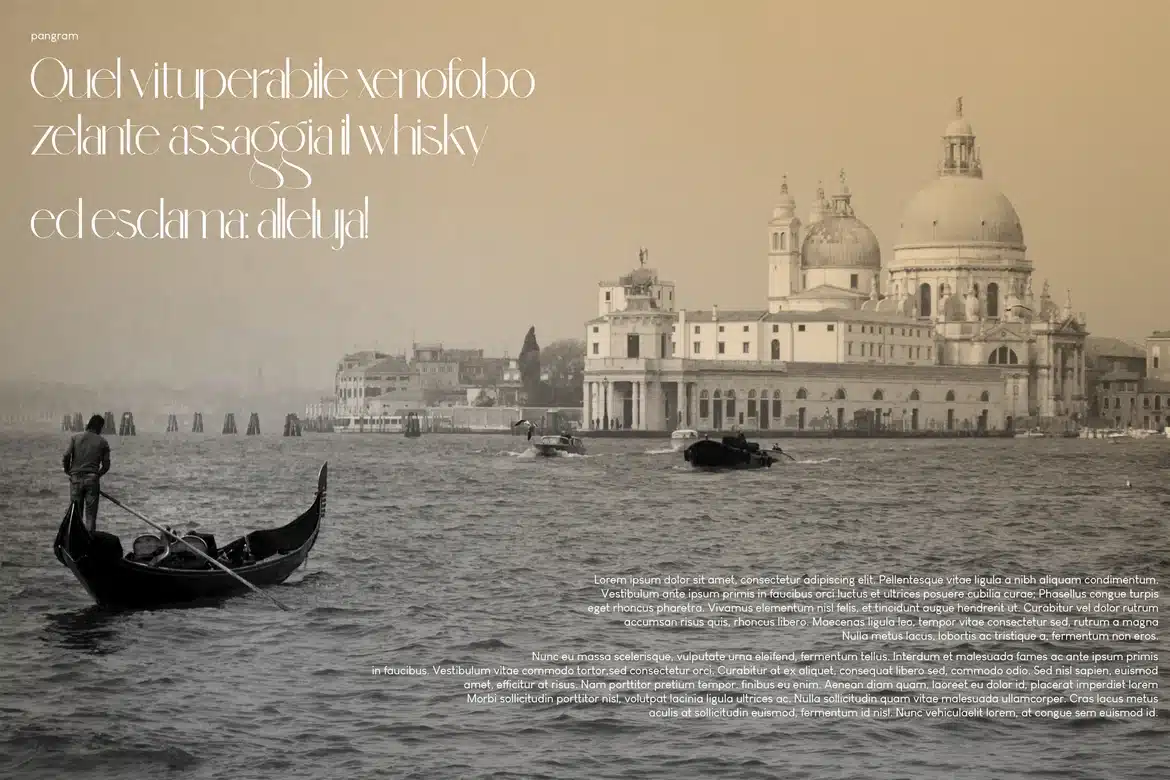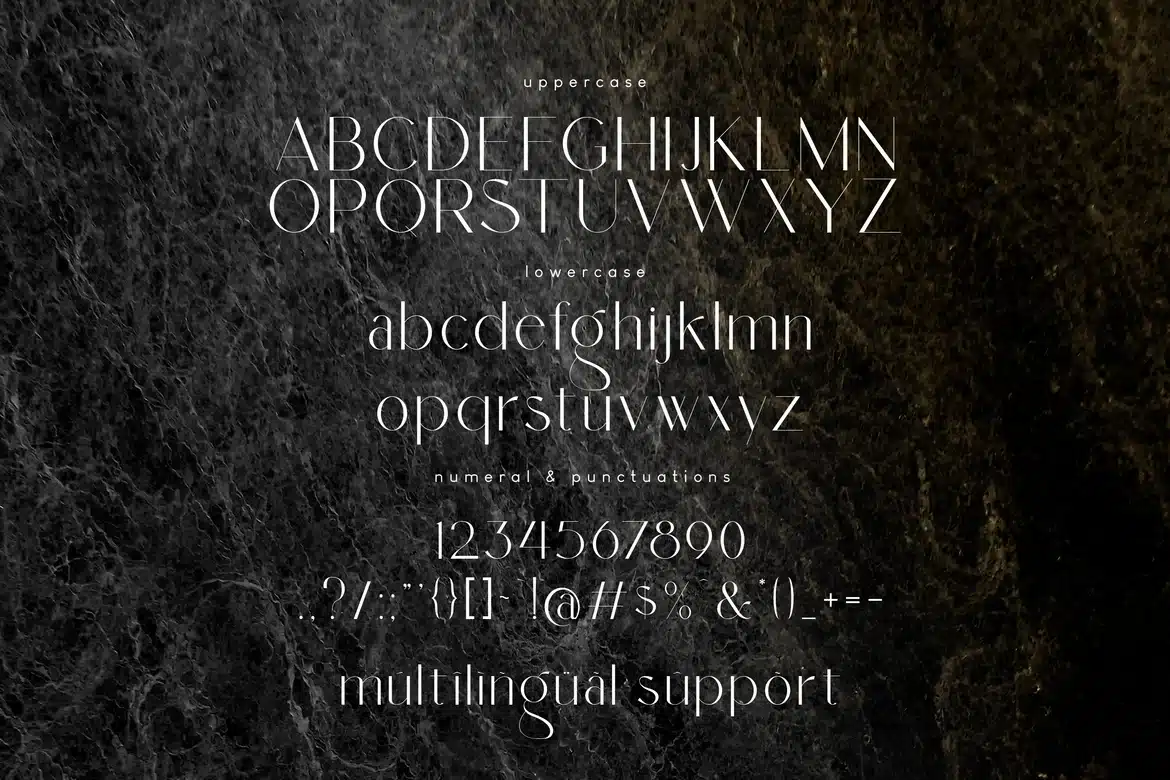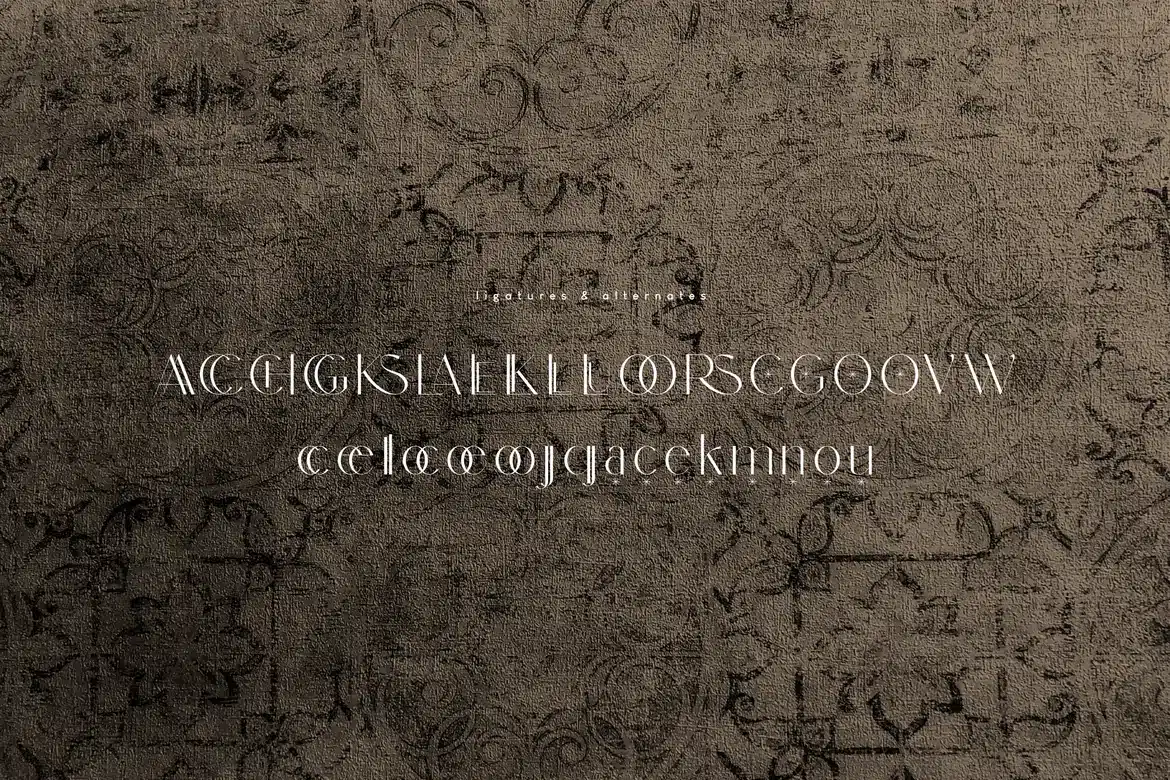
Dolce Gargia Modern Sans Serif Font
Introducing Dolce Gargia, a classic modern sans serif with aesthetic look. Perfect for who needing a touch of elegancy, stylish, classy, beautiful thin, and modernity for their design. Complete with
- ligatures
- alternates
- regular
- italic
- hollow
- icon
- kerning
- multilingual support